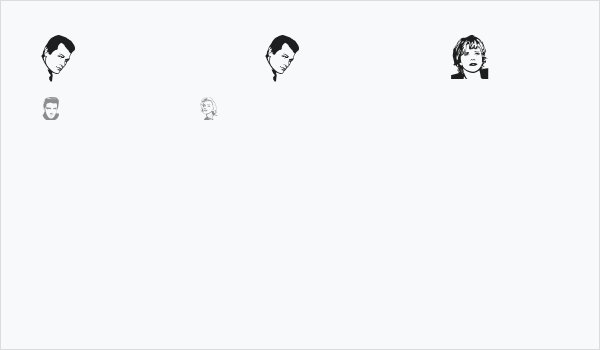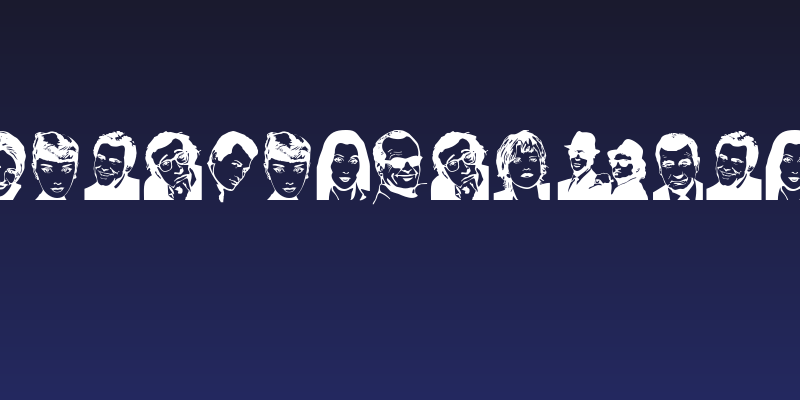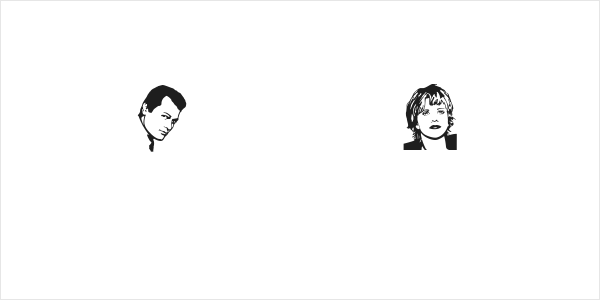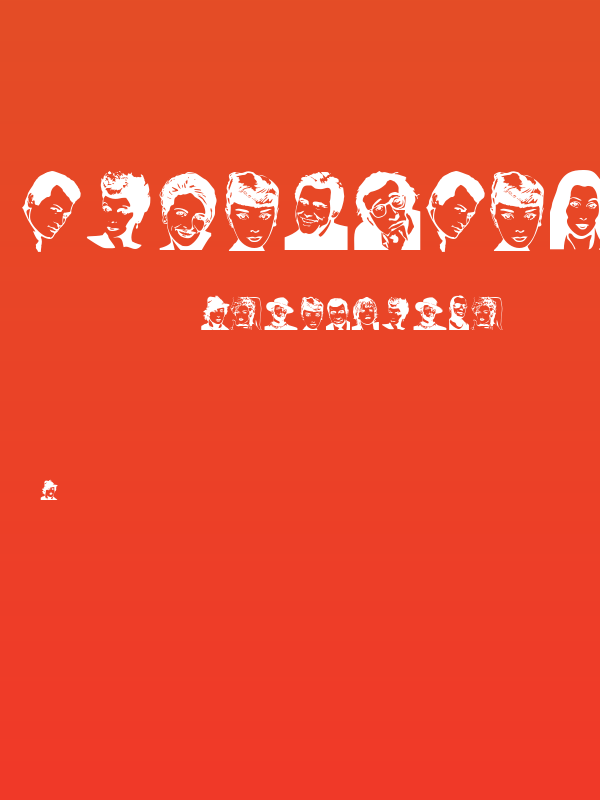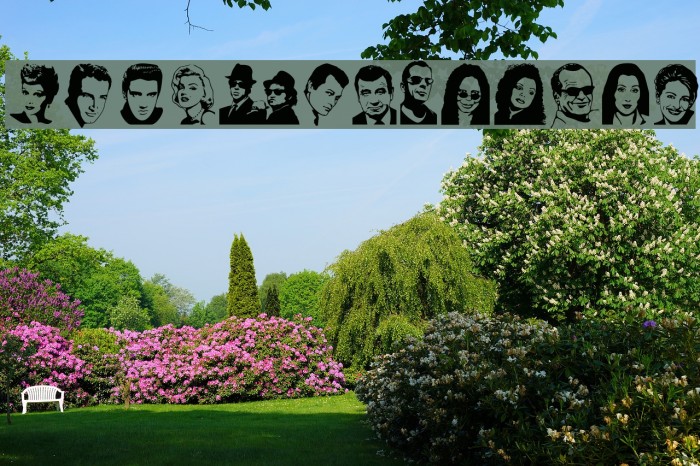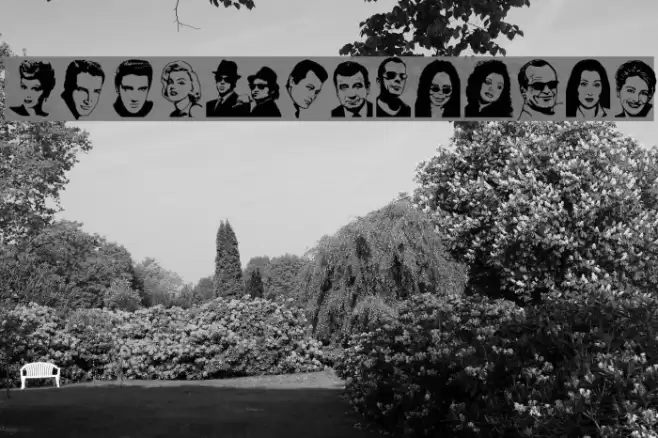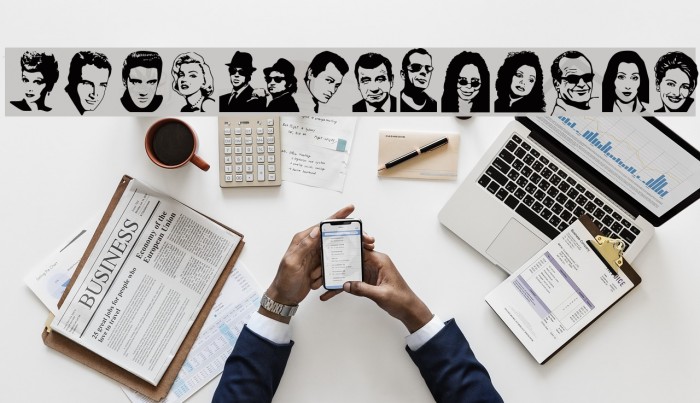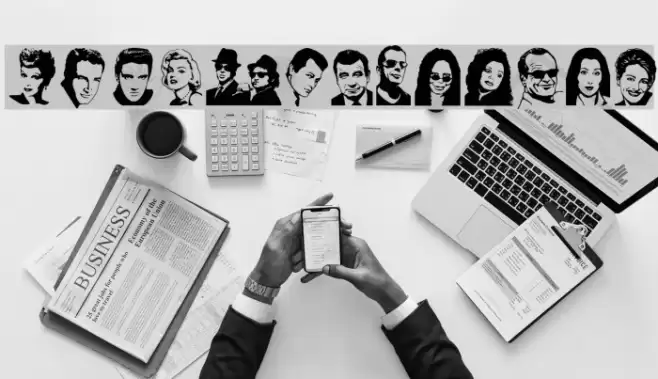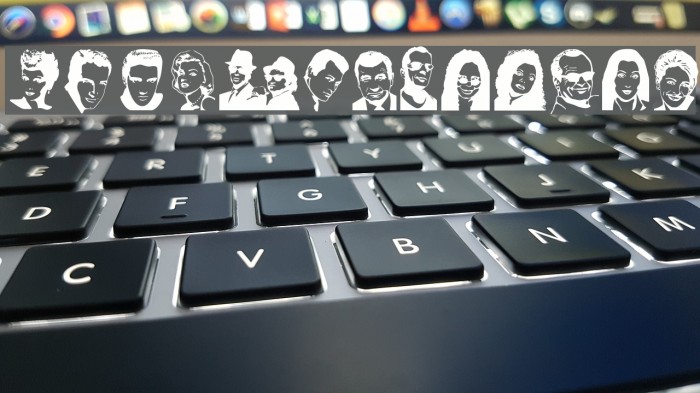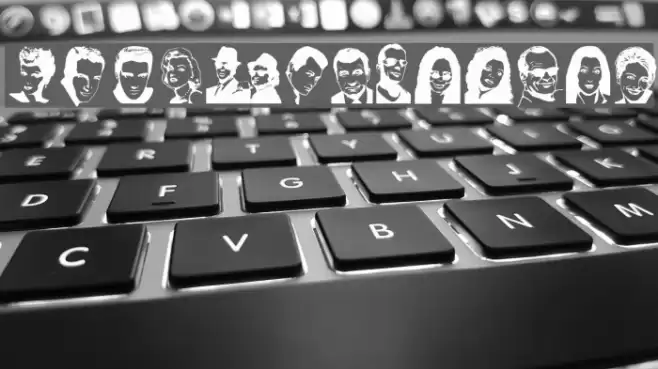
FamousFolksRegular Font
| Estilo general | Decorative, Pop Art, Graphic |
| Caso de uso | Display, novelty, creative projects, not suitable for body text. |
| Proyectos propuestos | Posters, album covers, event flyers, novelty invitations, pop culture projects. |